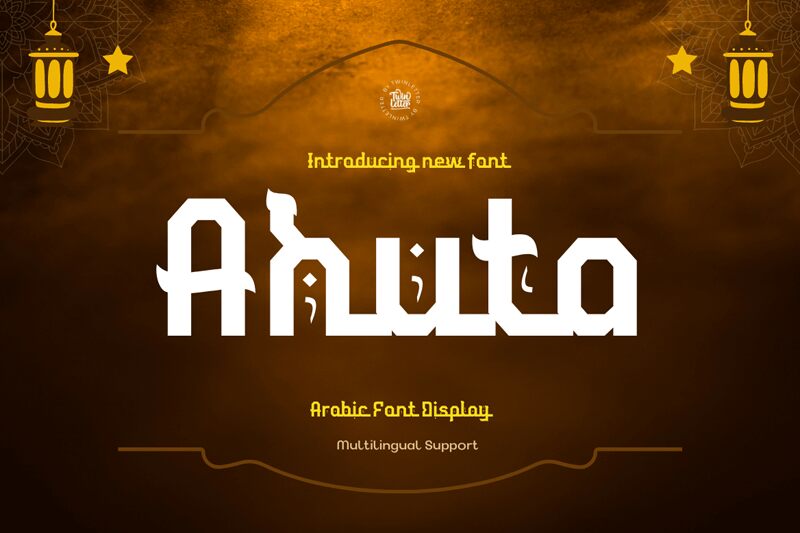
Ahuta, a captivating Arabic font by twinletter, is the epitome of vintage elegance. With its intricate design, this font adds a touch of exotic charm to any project.
Whether you're designing a travel brochure for an Arabian adventure or creating an elegant logo for a Middle Eastern restaurant, Ahuta is the perfect choice. Its simple yet sophisticated form ensures that your designs exude beauty and authenticity. Crafted with utmost dedication by our talented team, this premium typeface guarantees unparalleled quality.
Embrace the allure of Ahuta and elevate your designs to new heights of elegance and sophistication.